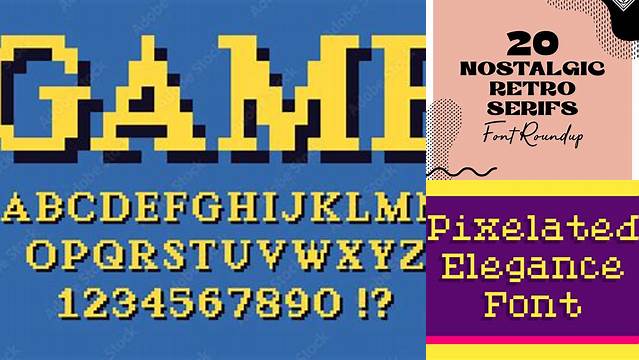
Free Pixelated Serif Fonts: Retro Typography For Your Projects
Are you ready to dive into the nostalgic world of pixelated serif fonts? In a design landscape often dominated by sleek, modern typefaces, there's a growing appreciation for the unique charm and character of pixel fonts. These fonts, reminiscent of classic video games and early computer interfaces, offer a distinct retro vibe that can add a special touch to your projects. In this article, we'll explore the realm of pixelated serif fonts, discuss their applications, and guide you on where to find them for free.
What are Pixelated Serif Fonts?
Pixelated serif fonts, guys, are essentially a digital recreation of the classic serif typeface, but with a twist. Instead of smooth curves and lines, these fonts are constructed from individual pixels, giving them a blocky, almost 8-bit appearance. The serifs, the small decorative strokes at the end of letterforms, are also pixelated, which adds to their distinctive retro aesthetic. This unique style makes them instantly recognizable and evokes a sense of nostalgia for older technology. The charm of pixelated serif fonts lies in their ability to blend the traditional elegance of serif typefaces with the raw, digital feel of early computer graphics. This combination creates a visually interesting contrast that can be used to great effect in various design applications. The pixelated nature of these fonts makes them ideal for projects that aim to capture a retro or vintage vibe. Think of the text in old arcade games, early computer interfaces, or even the title cards of classic TV shows. These fonts carry a certain weight of history and cultural significance, making them a powerful tool for designers looking to evoke a specific era. Moreover, the constraints imposed by the pixel grid can lead to surprisingly creative and innovative designs. Each pixel becomes a deliberate choice, shaping the letterform and contributing to the overall aesthetic. This level of detail and precision is what sets pixelated serif fonts apart from their smoother, more modern counterparts. They're not just fonts; they're a form of digital art that reflects the evolution of technology and design. Whether you're working on a video game, a website, a poster, or any other project, pixelated serif fonts can add a touch of retro cool that is both eye-catching and timeless.
The Allure of Pixelated Fonts: Why Choose Them?
Why should you, guys, even consider using pixelated serif fonts in your projects? Well, the appeal is multifaceted. First and foremost, these fonts offer a distinct aesthetic that sets them apart from the crowd. In a world of sleek, minimalist designs, the blocky, pixelated look can be a refreshing change. They bring a touch of nostalgia, reminding viewers of classic video games and early computing, which can be a powerful way to connect with your audience. The charm of pixelated fonts also lies in their versatility. While they're often associated with retro designs, they can also be used in more contemporary contexts to add a touch of quirkiness or irony. Imagine using a pixelated serif font for a tech startup's branding to convey a sense of playful innovation, or incorporating it into a modern art piece to create a visual juxtaposition. The key is to use them intentionally and in a way that complements your overall design. The pixelated style can also make text more legible at smaller sizes, especially in digital environments. This is because the sharp, defined edges of the pixels help to maintain the shape of the letters even when they're scaled down. This can be particularly useful for UI design, where clarity is crucial. Moreover, using pixelated fonts can be a way to express a certain design philosophy. They often convey a sense of authenticity and handcrafted quality, which can be appealing to audiences who are tired of generic, mass-produced designs. The pixelated look suggests a level of care and attention to detail, as each pixel is deliberately placed to form the letter. This can create a feeling of connection and trust with your audience. In addition, pixelated fonts can be a great choice for projects that aim to evoke a specific historical period or cultural movement. They're closely associated with the 1980s and early 1990s, a time of rapid technological innovation and the rise of digital culture. Using these fonts can be a way to pay homage to this era and tap into the nostalgia it evokes. Ultimately, the decision to use pixelated fonts comes down to your design goals and the message you want to convey. They're not always the right choice, but when used effectively, they can add a unique and memorable touch to your work. So, whether you're a game developer, a graphic designer, or just someone who appreciates the retro aesthetic, pixelated fonts are worth exploring.
How to Use Pixelated Serif Fonts Effectively
Okay, guys, you've got your hands on some awesome pixelated serif fonts. Now comes the fun part: actually using them in your designs. But, like any design element, pixel fonts need to be used thoughtfully to achieve the desired effect. Slapping a pixel font onto a project without considering the context can lead to a design disaster, so let's talk about how to use them effectively. First and foremost, consider the mood and tone you want to create. Pixelated fonts are inherently retro and nostalgic, so they're a natural fit for projects that aim to evoke those feelings. Think about video game-themed designs, 80s-inspired graphics, or anything that harkens back to the early days of computing. However, you can also use pixel fonts in unexpected ways to create contrast or irony. Imagine using a pixelated serif for the logo of a cutting-edge tech company to convey a sense of playful innovation, or pairing it with sleek, modern graphics for a visual juxtaposition. The key is to be intentional and make sure the font choice aligns with your overall design concept. Another crucial factor is legibility. Pixelated fonts, by their nature, can be less readable than smoother fonts, especially at small sizes. So, you need to be mindful of how and where you use them. Avoid using pixel fonts for large blocks of body text, as this can strain the reader's eyes. Instead, reserve them for headlines, subheadings, logos, or other short bursts of text where legibility is less critical. When using pixel fonts, think about the spacing between letters and lines. The blocky nature of the pixels can sometimes make the text appear crowded, so you might need to increase the letter spacing (tracking) or line height (leading) to improve readability. Experiment with different settings until you find a balance that works for your specific font and layout. Color plays a significant role in how pixelated fonts are perceived. Bright, vibrant colors can enhance the retro vibe, while more muted or neutral tones can give the font a more sophisticated look. Consider using classic 8-bit color palettes (like those found in old video games) for an authentic retro feel. Or, try pairing a pixel font with a modern color scheme to create a unique visual contrast. In terms of font pairing, pixelated serifs can be tricky. They don't always play well with other fonts, so you need to choose your companions carefully. A safe bet is to pair them with a simple, clean sans-serif font that won't compete for attention. Or, for a more adventurous look, try pairing them with another pixelated font (either serif or sans-serif) to create a cohesive retro aesthetic. Finally, don't overdo it. Pixelated fonts are a strong design element, and using too many of them in one project can be overwhelming. Use them sparingly and strategically to create the biggest impact. Think of them as a spice – a little goes a long way. By following these tips, you can harness the power of pixelated serif fonts to create designs that are both visually striking and effective.
Conclusion: Embracing the Pixelated Serif Aesthetic
So, guys, we've journeyed through the world of pixelated serif fonts, exploring their origins, appeal, and how to use them effectively. These fonts, with their unique blend of retro charm and digital grit, offer a powerful tool for designers looking to add a distinctive touch to their projects. Whether you're aiming for a nostalgic vibe, a playful contrast, or simply want to stand out from the crowd, pixelated serifs can help you achieve your vision. The versatility of pixelated serif fonts is one of their greatest strengths. They can be used in a wide range of applications, from video game design and branding to web design and print materials. They can evoke a sense of nostalgia, create a feeling of authenticity, or simply add a touch of quirky personality to your work. But, like any design element, they need to be used thoughtfully and intentionally. Understanding the nuances of pixelated fonts and how they interact with other design elements is crucial for creating successful designs. Consider the mood and tone you want to create, pay attention to legibility, and experiment with different font pairings and color palettes. Most importantly, don't be afraid to break the rules and try new things. The world of typography is constantly evolving, and pixelated fonts are just one example of the exciting possibilities that exist. As we've seen, finding free pixelated serif fonts is entirely possible, thanks to the wealth of resources available online. However, it's essential to be mindful of licensing and ensure that you're using fonts in accordance with their terms of use. Always double-check the license agreement before downloading and using a font, and when in doubt, err on the side of caution. In the end, embracing the pixelated serif aesthetic is about more than just using a cool font. It's about understanding the history and culture behind these fonts, appreciating their unique characteristics, and using them in a way that is both creative and effective. So, go forth and experiment, guys. Explore the world of pixelated serifs, and discover the magic they can bring to your designs. Whether you're a seasoned designer or just starting out, these fonts offer a fun and rewarding way to express your creativity and connect with your audience. The retro revolution is here, and it's pixelated.